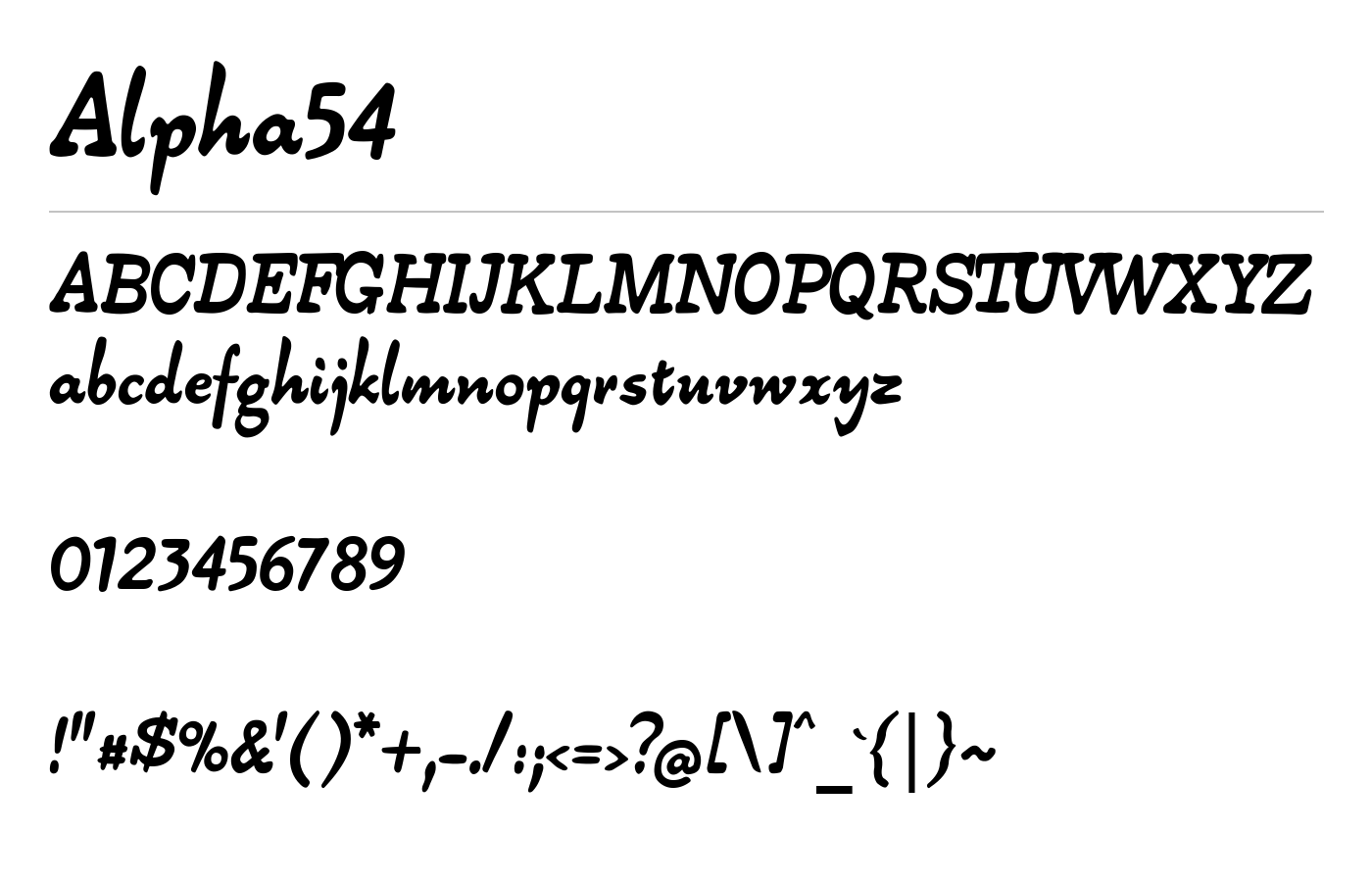
Alpha54 is a lively and informal serif font with a moderate contrast between its thick and thin strokes, featuring a casual, slightly slanted style that mimics handwritten calligraphy. Its playful, approachable character makes it ideal for creative branding, packaging, and headlines where a warm, friendly tone is desired. This font works well in designs that seek personality and charm without sacrificing readability.
Alpha54 Font
About Alpha54 Font
| Font family | Alpha54 Font |
| Designer | Peter Wiegel |